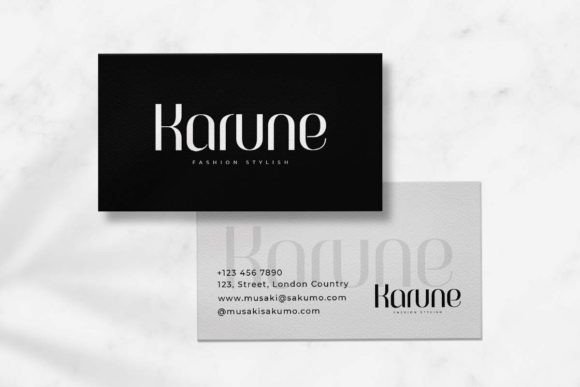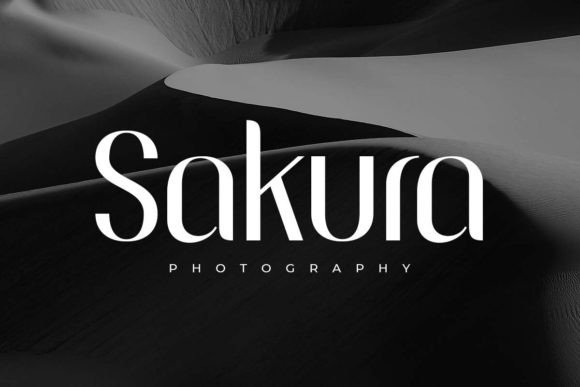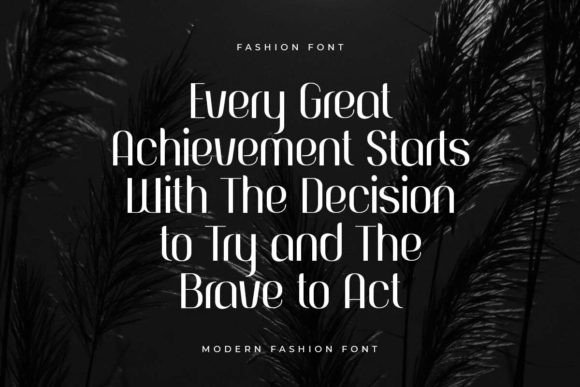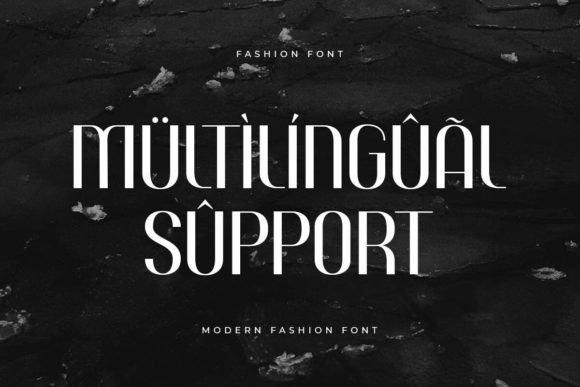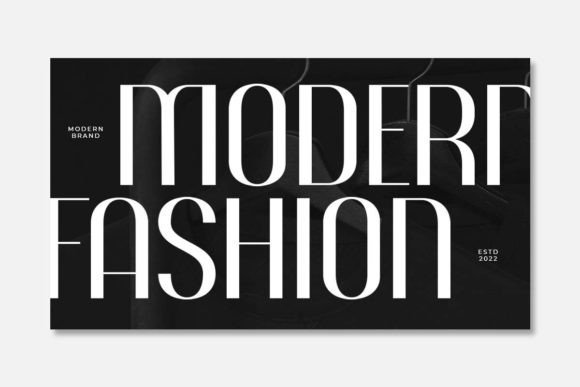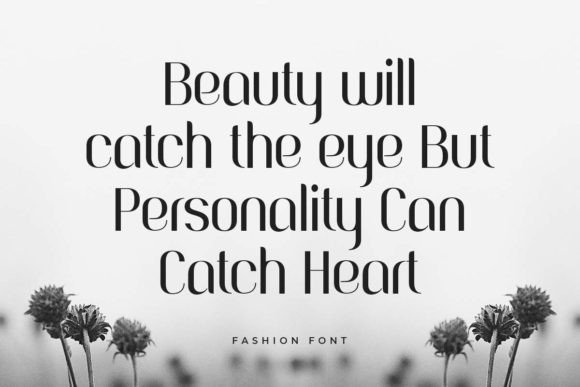
Unlocking the Secrets of Timeless Style with Fashion Font
You know that moment when you stumble upon a font that perfectly captures the essence of your creative vision? For many designers, that moment is what drives them to push the boundaries of their craft. And for those who are always on the lookout for that perfect font, we have some exciting news: enter Fashion Font, the stylish sans-serif font that’s about to revolutionize your designs.
This meticulously crafted font is more than just a typographic tool – it’s a statement piece that brings a touch of sophistication to your work. Whether you’re working on a high-end fashion brand, a luxury lifestyle magazine, or a premium e-commerce website, Fashion Font is the perfect companion to elevate your visual identity. With its classic elegance and modern flair, this font is a valuable addition to any designer’s toolkit.
Fashion Font Key Features
- Font Family: Fashion Font is a unique, high-end font family with 6 styles, including Light, Regular, Medium, Bold, Black, and Outline.
- Character Set: Fashion Font contains over 800 glyphs, including a wide range of characters, punctuation, and symbols, ensuring comprehensive language support.
- Unique Characteristics: Fashion Font features a sleek, modern design with clean lines, elegant curves, and sophisticated typography, making it ideal for high-end fashion, luxury brands, and creative industries.
Fashion Font Review
As a designer, I’m always on the lookout for fonts that can elevate my designs and communicate the desired message to my audience. In this review, I’ll share my honest opinion about the “Fashion Font” – its strengths, weaknesses, and overall impression.
- Highly customizable: The Fashion Font offers a wide range of customization options, allowing me to tailor the font to my specific design needs.
- Modern and sleek design: The font’s clean and minimalist design makes it perfect for modern branding and packaging designs.
- Supports multiple languages: The font is fully Unicode-encoded, ensuring that it supports a wide range of languages and characters.
- Not suitable for historical or vintage designs: The font’s modern design may not be the best fit for designs that require a more traditional or vintage feel.
The Fashion Font is a solid choice for designers who need a modern and customizable font for their designs. While it may not be the best fit for every project, its strengths make it a valuable addition to any designer’s toolkit. With a little creativity and experimentation, the Fashion Font can help take designs to the next level.
Tips for Getting the Most Out of Fashion Font
Use Fashion Font to create eye-catching headlines and titles. Pair it with a bold, sans-serif font for a stylish contrast. Experiment with different font sizes and colors to create a visually appealing design.
Fashion Font is perfect for creating fashion-related designs, such as clothing labels, fashion magazines, and runway show invitations. It’s also great for adding a touch of elegance to wedding invitations, event programs, and luxury brand materials.